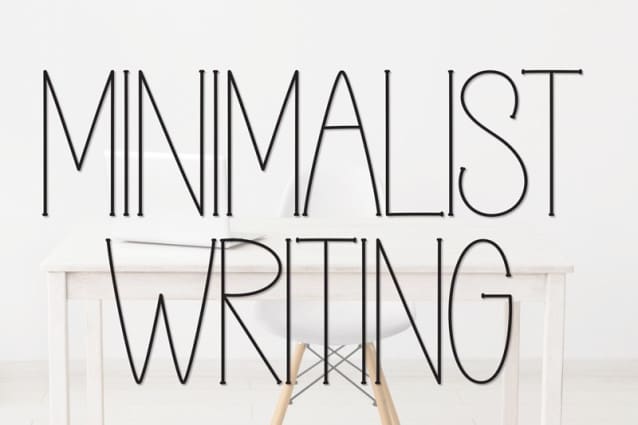
Minimalist Writing Font
Minimalist Writing Font, special creative products for you, our products will give you an extraordinary experience.
the latest style letters are perfect for wall displays, wedding invitations, social media post logos,
advertisements, product packaging, product designs, labels, photography, watermarks, invitations, stationery,
and any project that requires taste handwriting.